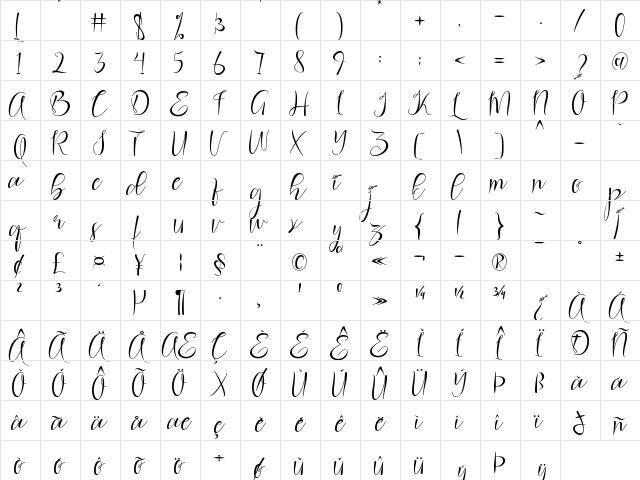
hello valentine Regular Font Preview
hello valentine Regular
hello valentine Regular Font Details
| Designer | Yoga Letter 2020 (Isroni Yoga Prasetya) |
Design Context for hello valentine Typeface
hello valentine is a composed and adaptable typeface that performs quietly and consistently across a wide range of design contexts.